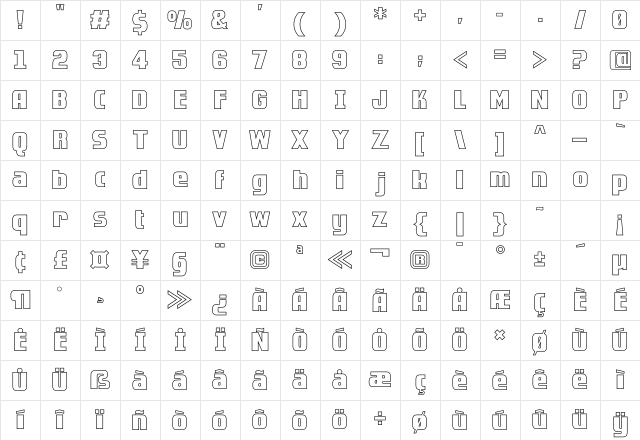
Golden Dragon Outline
Style: Outline
Golden Dragon Family
Golden Dragon Outline
Complete Golden Dragon Outline glyph index. Displaying only characters natively supported by Golden Dragon Outline font.
Design Context for Golden Dragon
Golden Dragon is built around its visual character rather than neutral utility - its distinctive forms are designed to make an impression at display sizes.
Font Pairing: Pair with a clean neutral sans-serif for body copy to let Golden Dragon's character lead without overwhelming the composition.
Pro Tip: Use Golden Dragon exclusively at display sizes - it was designed to be seen, not read at length. Let a neutral companion handle body copy.